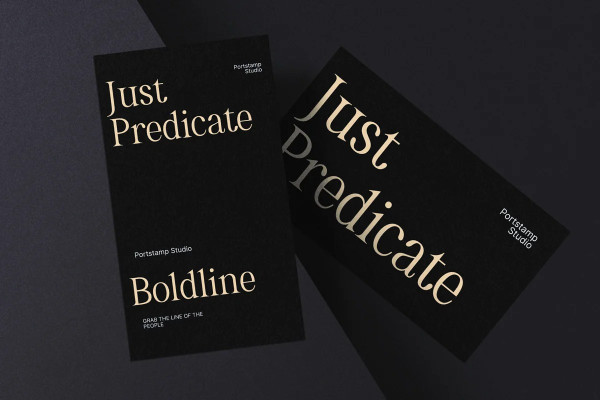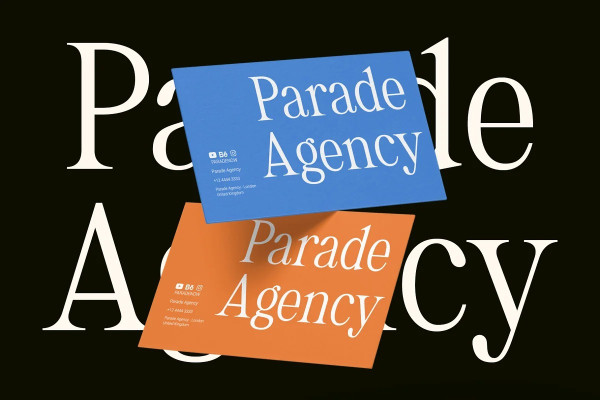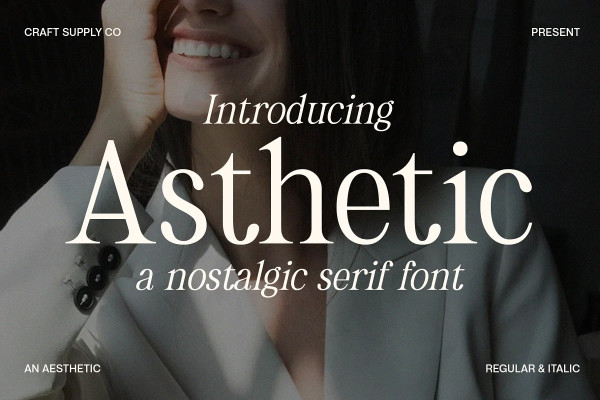
Asthetic Font
Asthetic Font: A nostalgic serif font that channels the essence of bygone eras. With its timeless lines and vintage charm, Astheticevokes a sense of nostalgia in your projects. Infuse your designs with the allure of the past using Asthetic’s classic and enduring style.
This typeface is ideal for greeting card, packaging, brand identity, poster, or any purpose to make your design project look eye catching and trendy. Feel free to play with this typeface!